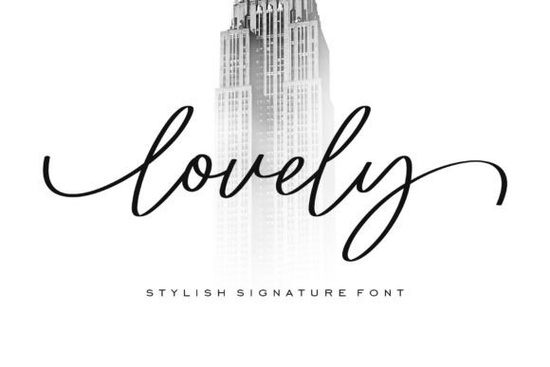
If you're looking for a script font that feels soft, personal, and quietly elegant without being overly ornate or hard to read Lovely Font is worth your attention. It’s not flashy, but it carries warmth and intention in every curve. Designers working on wedding stationery, small-batch greeting cards, or boutique branding often need something that whispers “thoughtful” rather than shouts “attention.” That’s where Lovely fits in: delicate lines, gentle swashes, and airy spacing that never crowds the page.
When does Lovely Font work best?
It shines in projects where tone matters as much as legibility. Think handwritten-style invitations where guests should feel personally welcomed not just informed. It also pairs well with minimalist layouts, especially when layered over soft textures or muted color palettes. Because its letterforms are light and open, it scales beautifully from tiny tags on handmade soap packaging to large-format wall art for a baby nursery.
Small businesses selling curated gift sets, print-on-demand sellers offering seasonal cards, and crafters making custom embroidery patterns all find value in fonts like Lovely. It’s feminine without leaning into cliché, romantic without feeling dated and it avoids the stiffness some script fonts carry at smaller sizes.
How does it compare to other popular script fonts?
Unlike bolder, high-contrast scripts (think calligraphy-inspired fonts with dramatic thick-thin transitions), Lovely keeps things subtle. Its thin strokes and graceful terminals give it movement without visual noise. If you’ve tried heart-warming-font-script-fonts and found them too rounded or playful for your current project, Lovely offers a quieter alternative. It shares some of the same gentle rhythm as happy-rainbow-family-font-script-fonts, but with more restraint ideal when whimsy needs to stay grounded.
For designers who lean into vintage aesthetics, Lovely sits comfortably beside options like chicago-downton-font-script-fonts, though it doesn’t mimic historical letterforms. Instead, it feels contemporary and intentional like something you’d choose for a modern apothecary logo or a slow-living blog header. And if you appreciate the flow of wonder-day-font-script-fonts, you’ll likely enjoy how Lovely balances connected letters with enough separation to keep readability intact even at 14pt.
What about practical use?
Lovely includes standard Latin characters, numbers, and basic punctuation. It supports OpenType features like ligatures and alternate characters useful if you want to swap out a default ‘&’ for a more stylized version or add a subtle flourish to the end of a word. Most users report smooth performance in both Adobe apps and free tools like Canva (when uploaded as a custom font). Just keep in mind: because of its light weight, it’s not ideal for body text or long paragraphs. Save it for headlines, quotes, labels, and short phrases where impact and mood matter most.
You’ll also find it works well alongside clean sans-serifs try pairing it with a simple geometric typeface for contrast. That combo gives balance: one voice that speaks softly, another that grounds the layout. For print-on-demand sellers, this pairing helps create cohesive product families say, matching mugs and greeting cards without needing multiple decorative fonts.
Who tends to get the most out of Lovely Font?
- Wedding designers building invitation suites or vow books where elegance feels personal, not formal.
- Crafters making printable planners, sticker sheets, or digital scrapbooking kits especially those focused on self-care or motherhood themes.
- Small business owners launching skincare, candle, or tea brands that emphasize natural ingredients and mindful rituals.
- Print-on-demand sellers curating seasonal collections think Valentine’s Day cards, Mother’s Day prints, or spring-themed wall art.
One thing to note: while Lovely reads beautifully on screen and in print, avoid stretching or distorting the font. Its charm lives in its natural proportions. Also, if you’re using it for web projects, consider converting short headlines to outlines or pairing it with a web-safe fallback for longer blocks of text.
If you're exploring script fonts with quiet confidence, Lovely Font is a thoughtful choice not just for what it looks like, but for how it supports your message without competing with it.